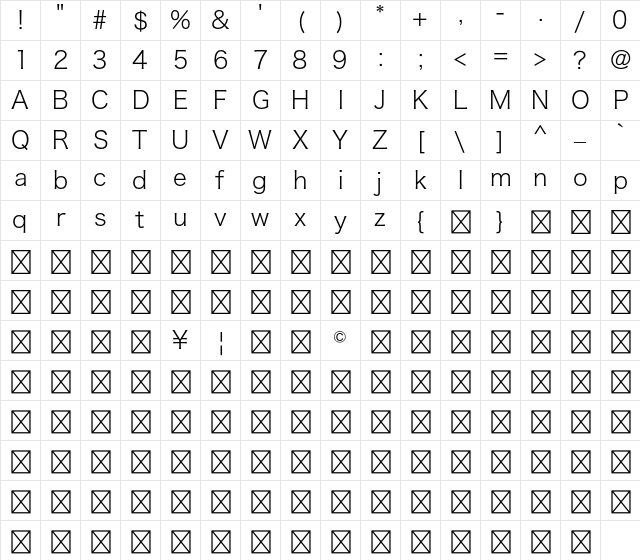
Complete Hiragino KakuGo ADKana Std W2 glyph index. Displaying only characters natively supported by Hiragino KakuGo ADKana Std W2 font.
Hiragino KakuGo ADKana Std is a composed and adaptable typeface that performs quietly and consistently across a wide range of design contexts.
Who designed the Hiragino KakuGo ADKana Std W2 font?
This font was published by Dainippon Screen Mfg. Co., Ltd.. Check the technical specs section for copyright and designer details.